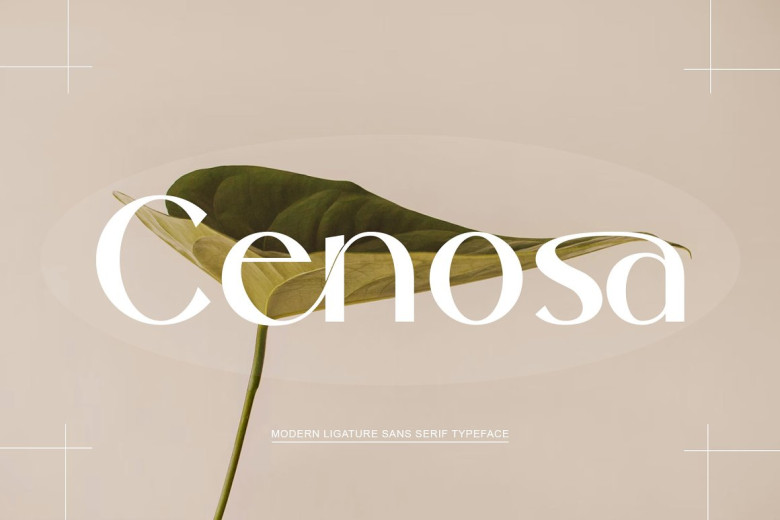
Cenosa Font
Cenosa Sans Serif font with simple, clean, and visual elegance. Specially designed for elegant-themed projects, perfectly suitable for creating simple, clean, lifestyle design such as logos, title, and magazine and more.
Cenosa Sans Serif Font